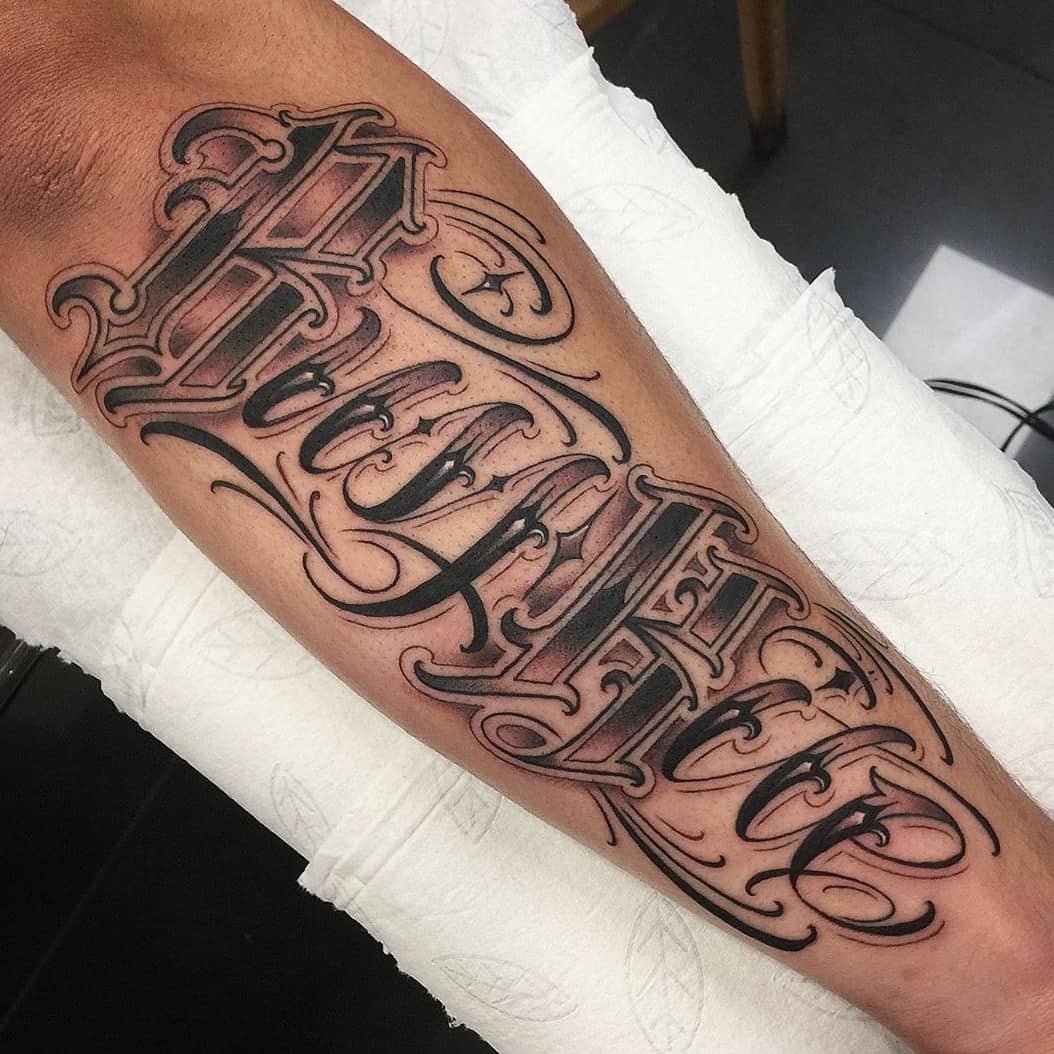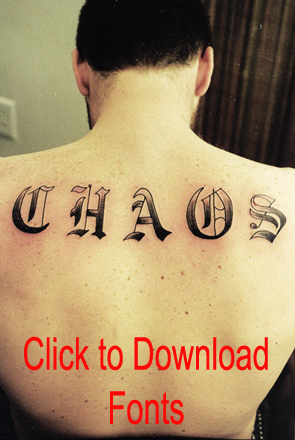
Old English is seen more than ever in tattoos.
See more ideas about lettering alphabet tattoo lettering fonts. At The End Of The Day Font Fonts Quotes Tattoo Fonts Tattoo Quotes. This textual style has an engraving look and it makes it very much popular to be used.
Celtic fonts graffiti fonts blade fonts etc. This old English style tattoo text style is attractive cool latest and beautiful look and have a decorative font for your inspiration. It is also known as Blackletter or medieval calligraphy.
See more ideas about tattoo lettering fonts graffiti lettering. The Old English script makes your designs look like they are from the Middle Ages. This is an amazing and wonderful free tattoo font that you can download for free and used on your client projects.